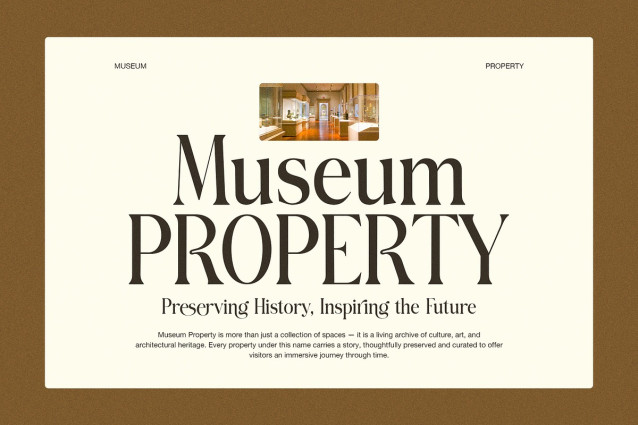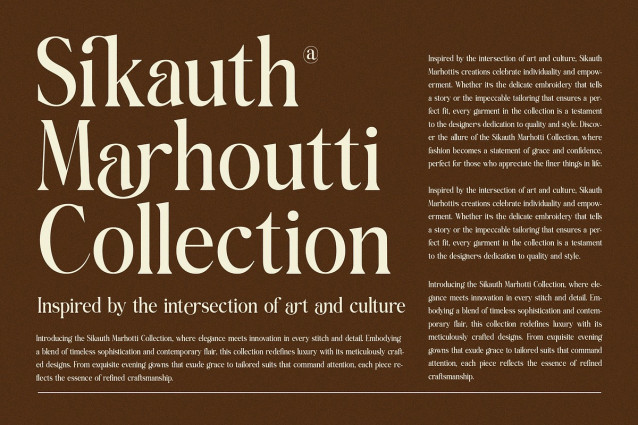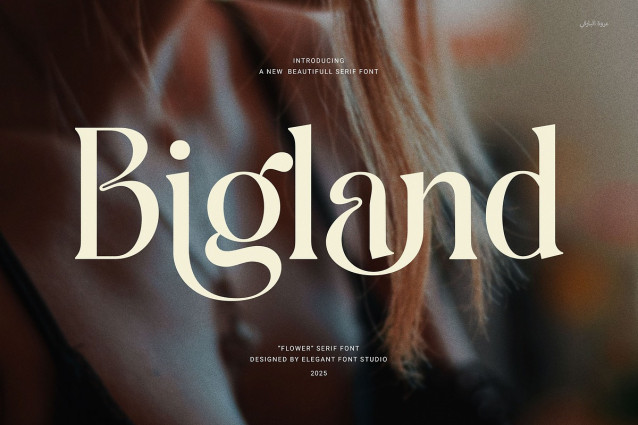
Bigland Font
Bigland Font – Elegant Serif Font is a modern serif typeface created to bring a timeless, professional touch to any design. Its elegant letterforms are carefully crafted with proportional balance, making it ideal for visual harmony in both large and small text.
This font includes functional ligatures that enhance the natural rhythm of each word, creating smooth and attractive text flow. The details are subtle but impactful—perfect for giving your layout that extra polish.